FDI Type Foundry
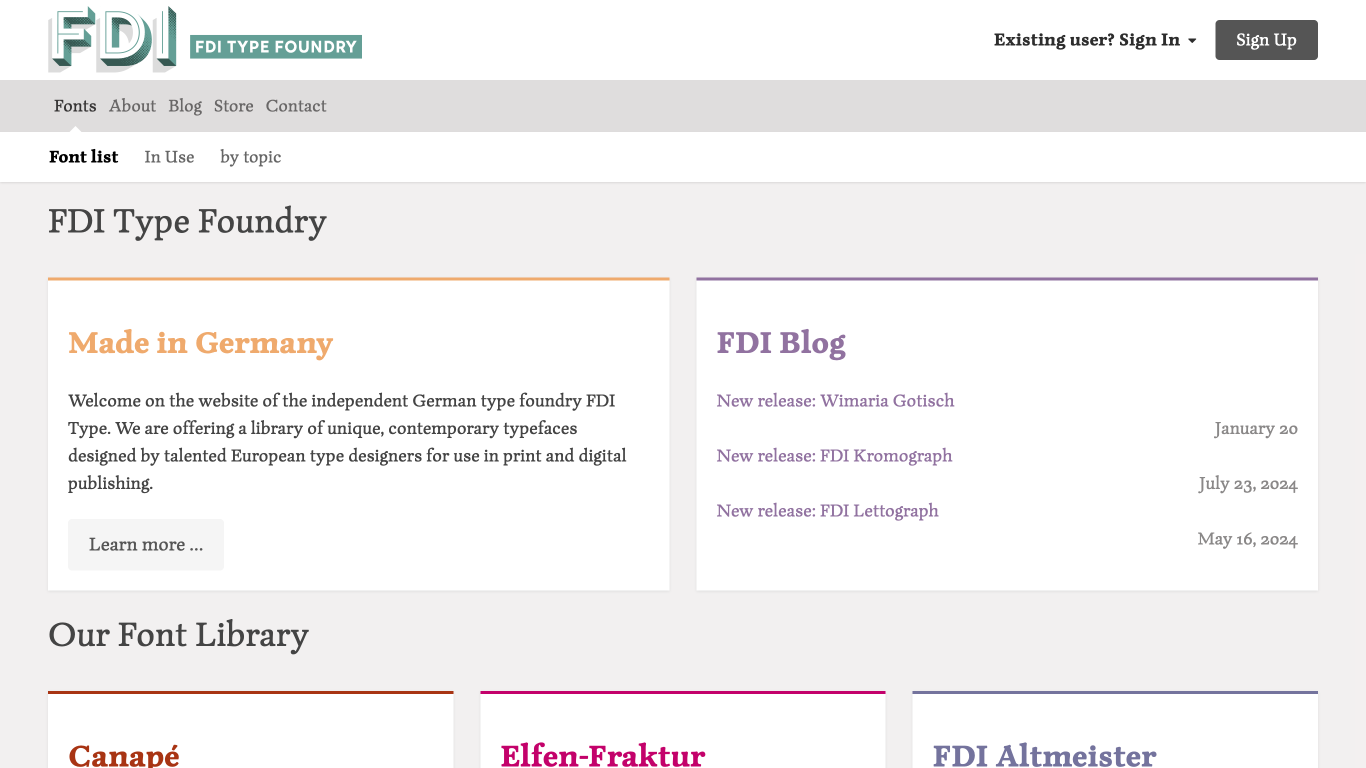
Germany
2004
Founded in 2004, FDI Type Foundry is an independent German type foundry offering a library of unique, contemporary typefaces designed by talented European type designers for use in print and digital publishing. Their collection includes typefaces like Canapé, Elfen-Fraktur, and Wayfinding Sans Pro, showcasing a dedication to both historical revivals and modern designs.